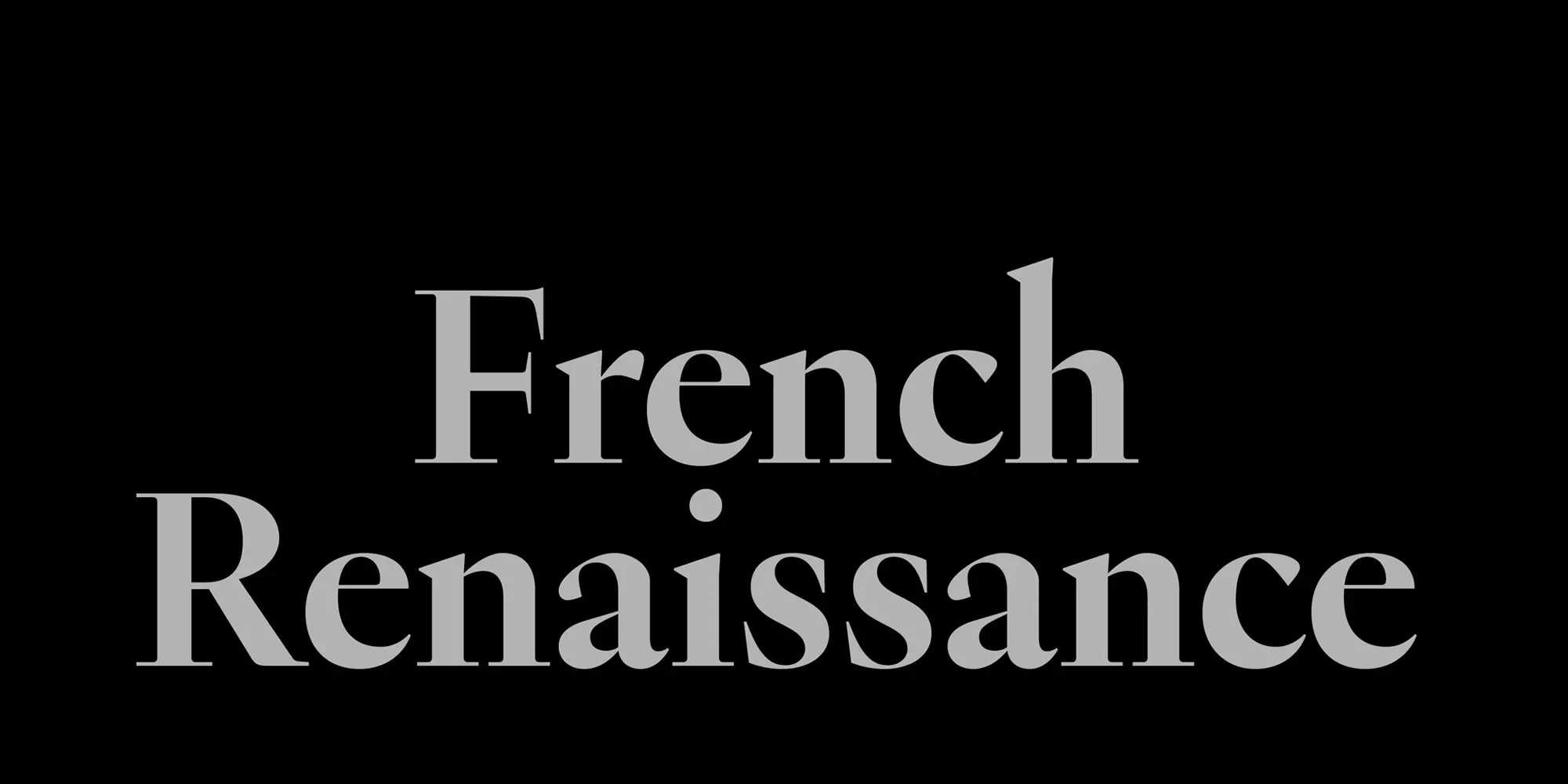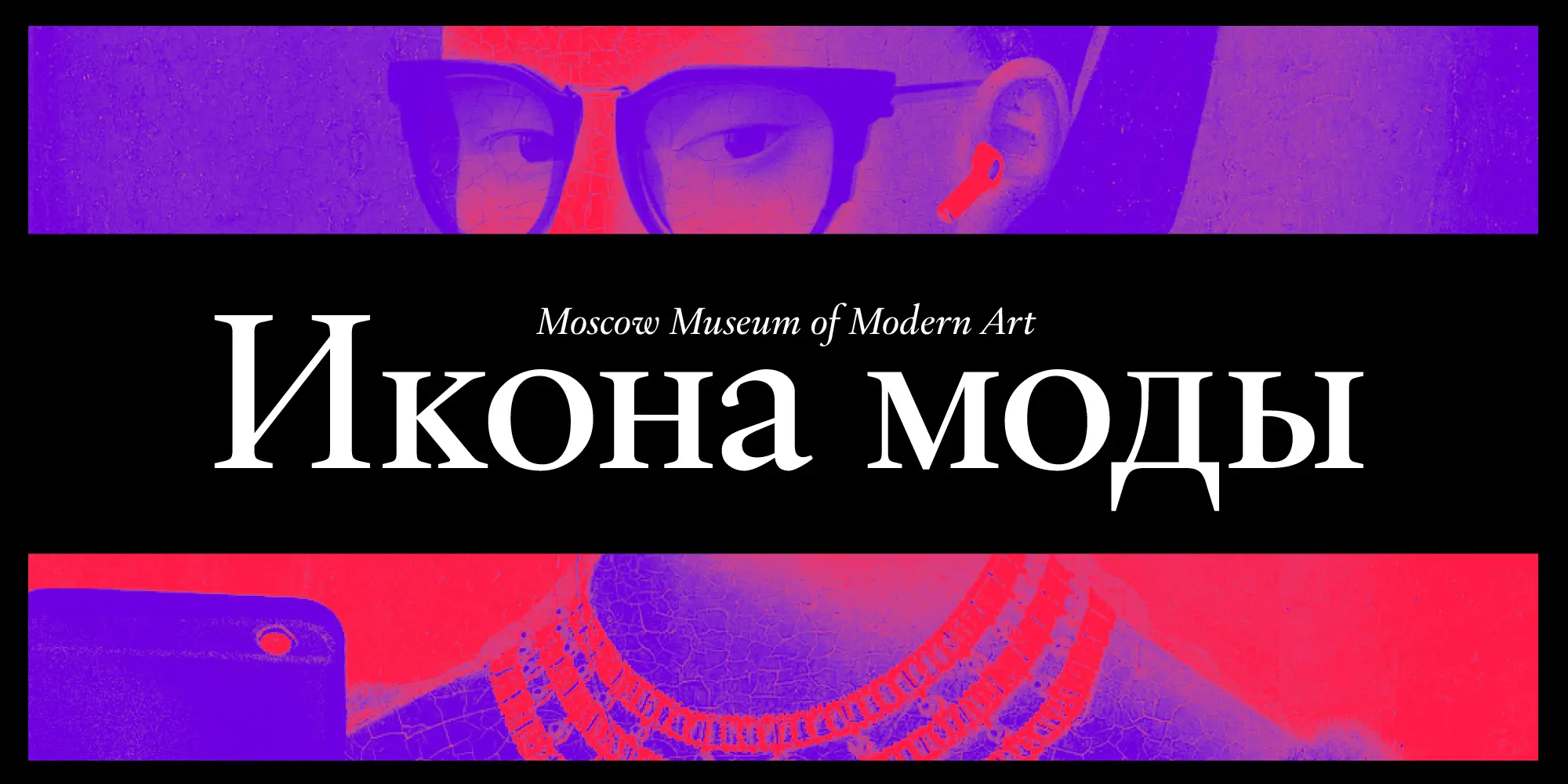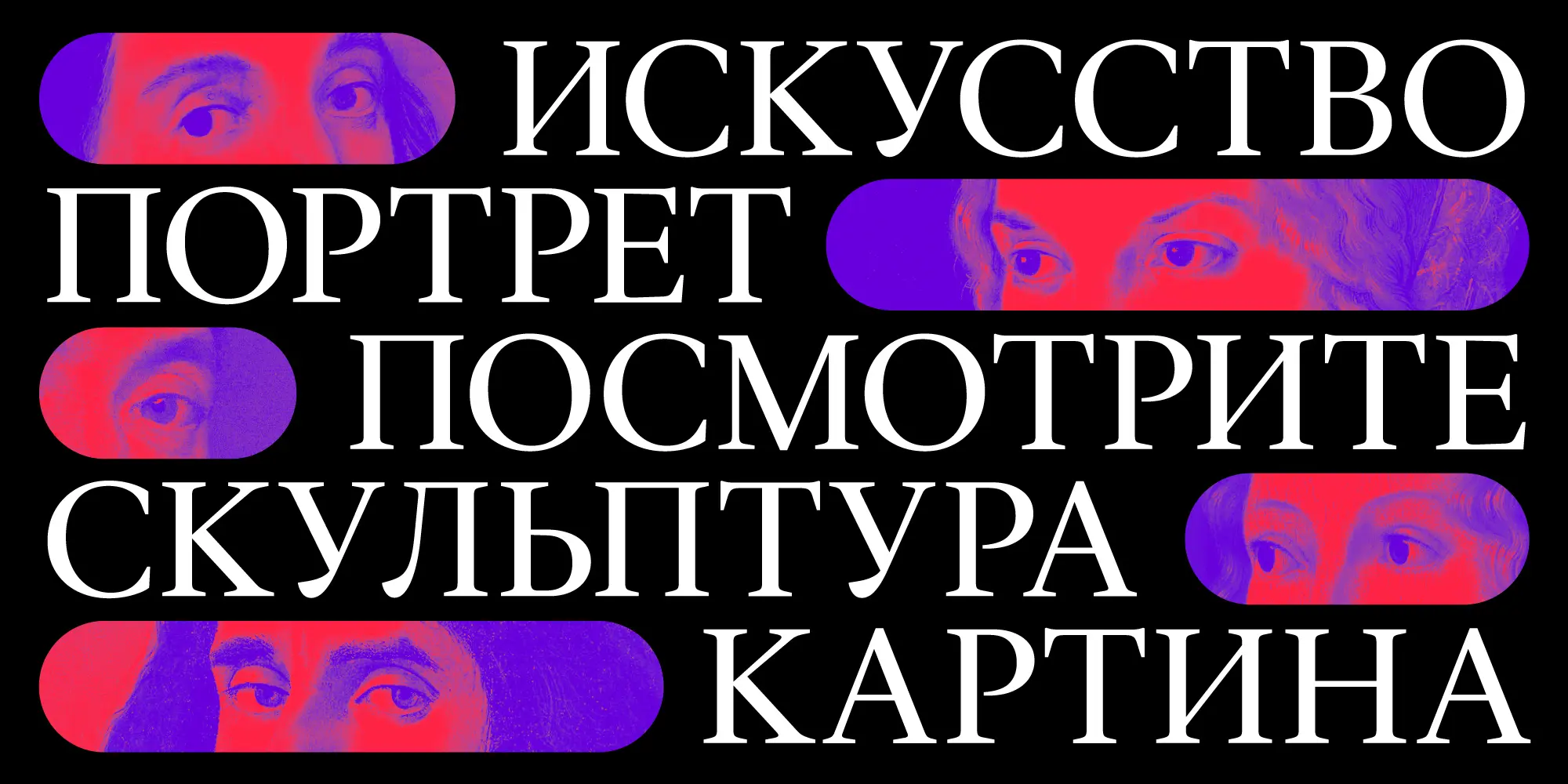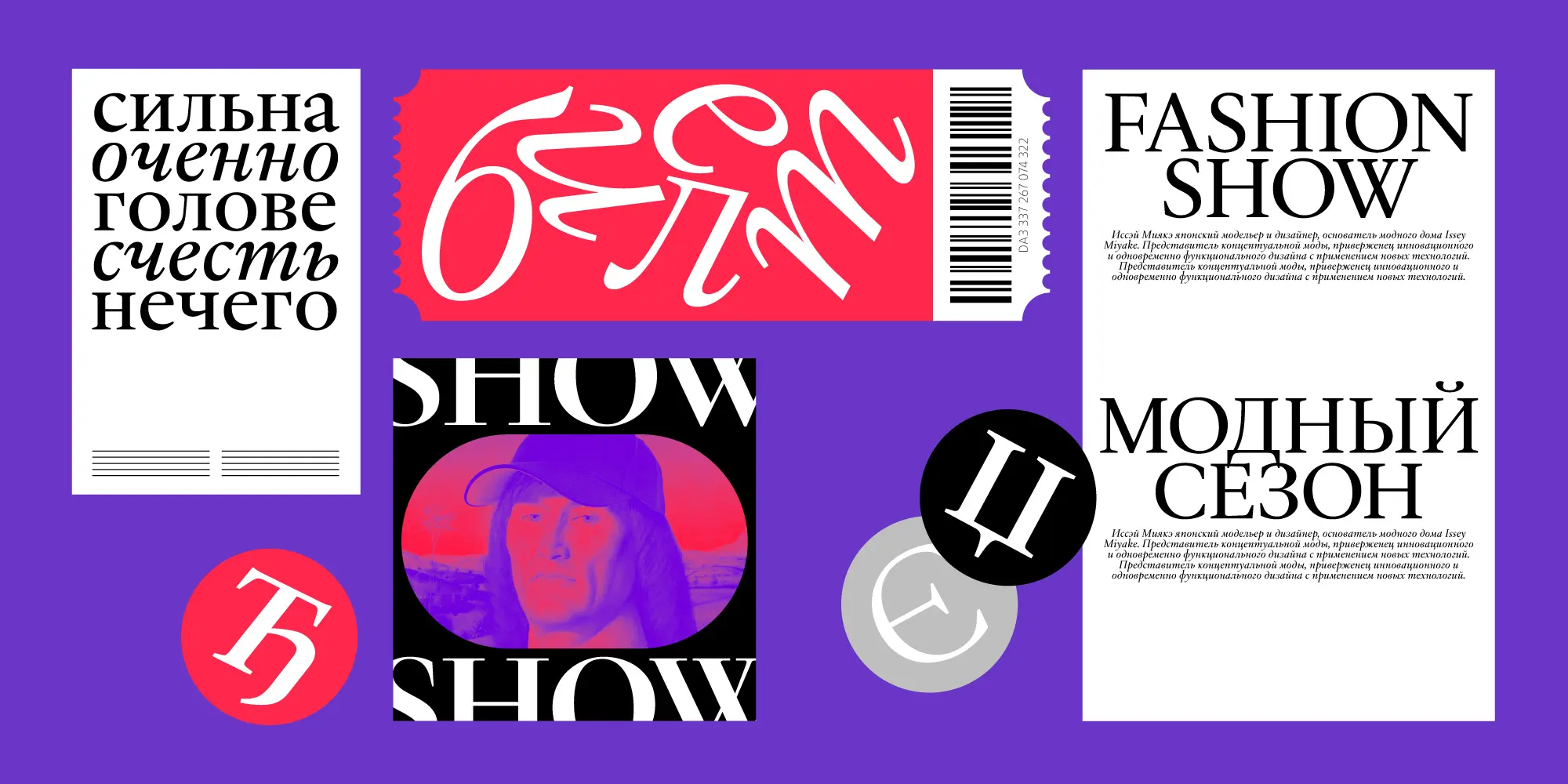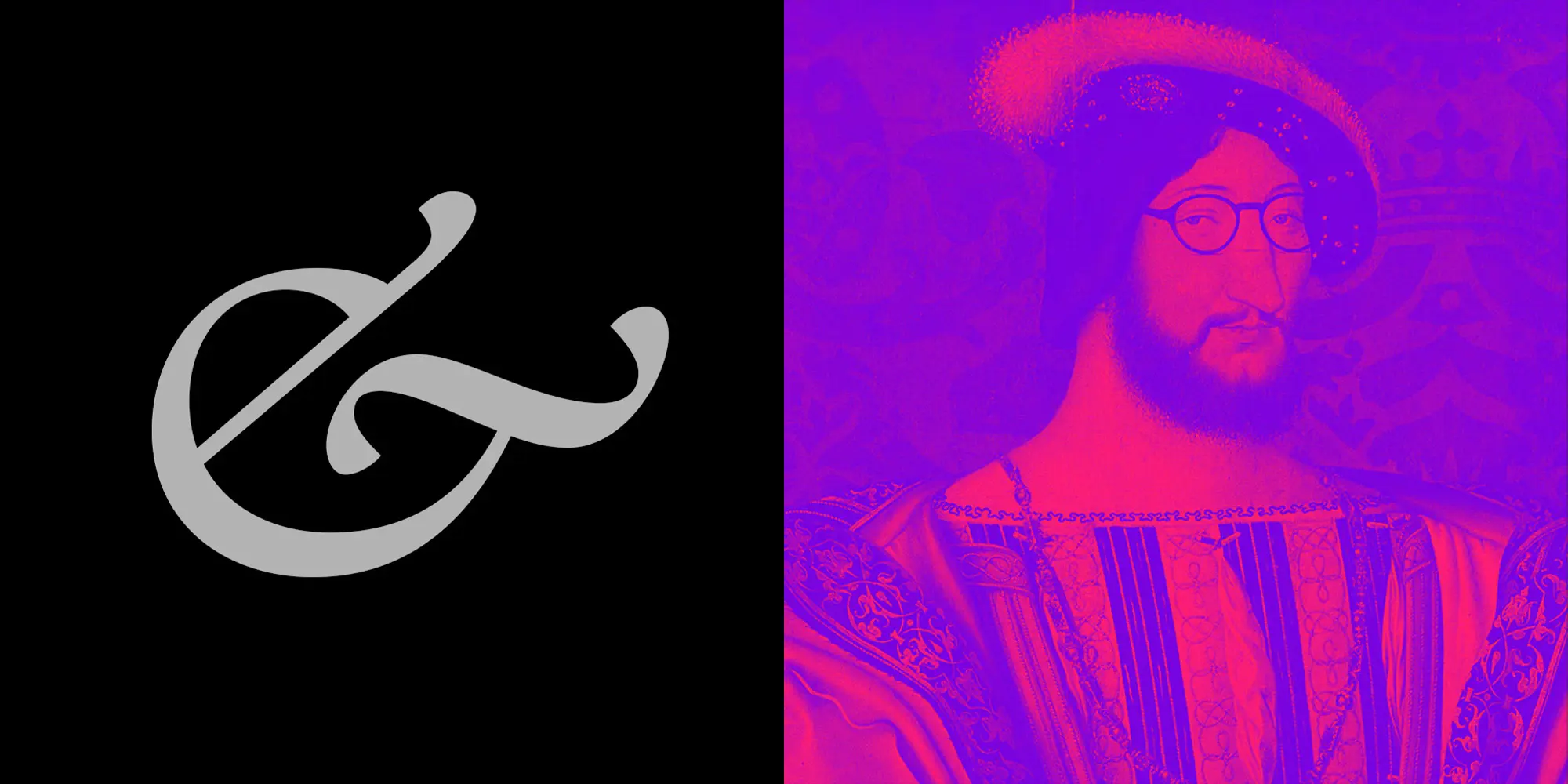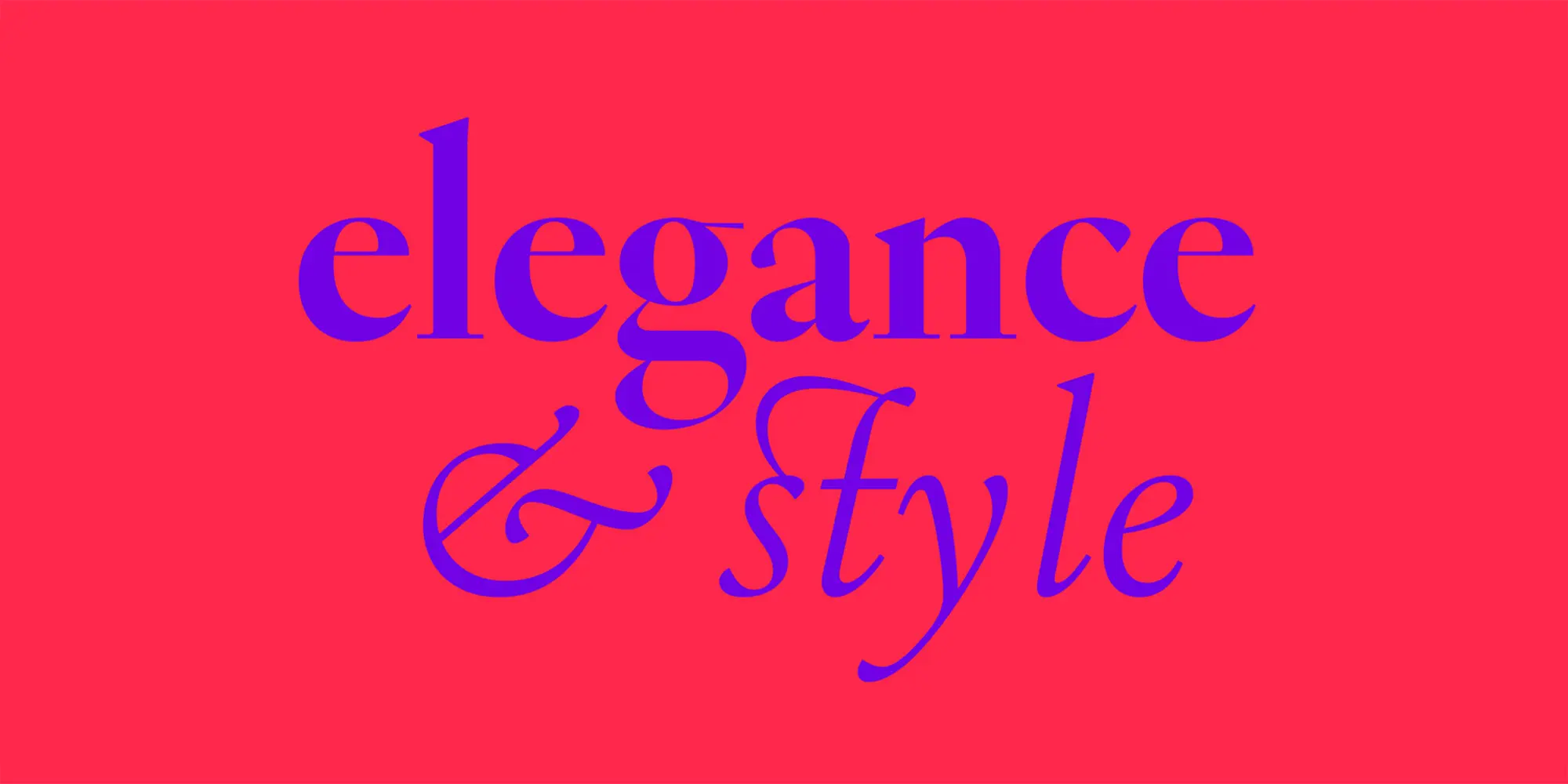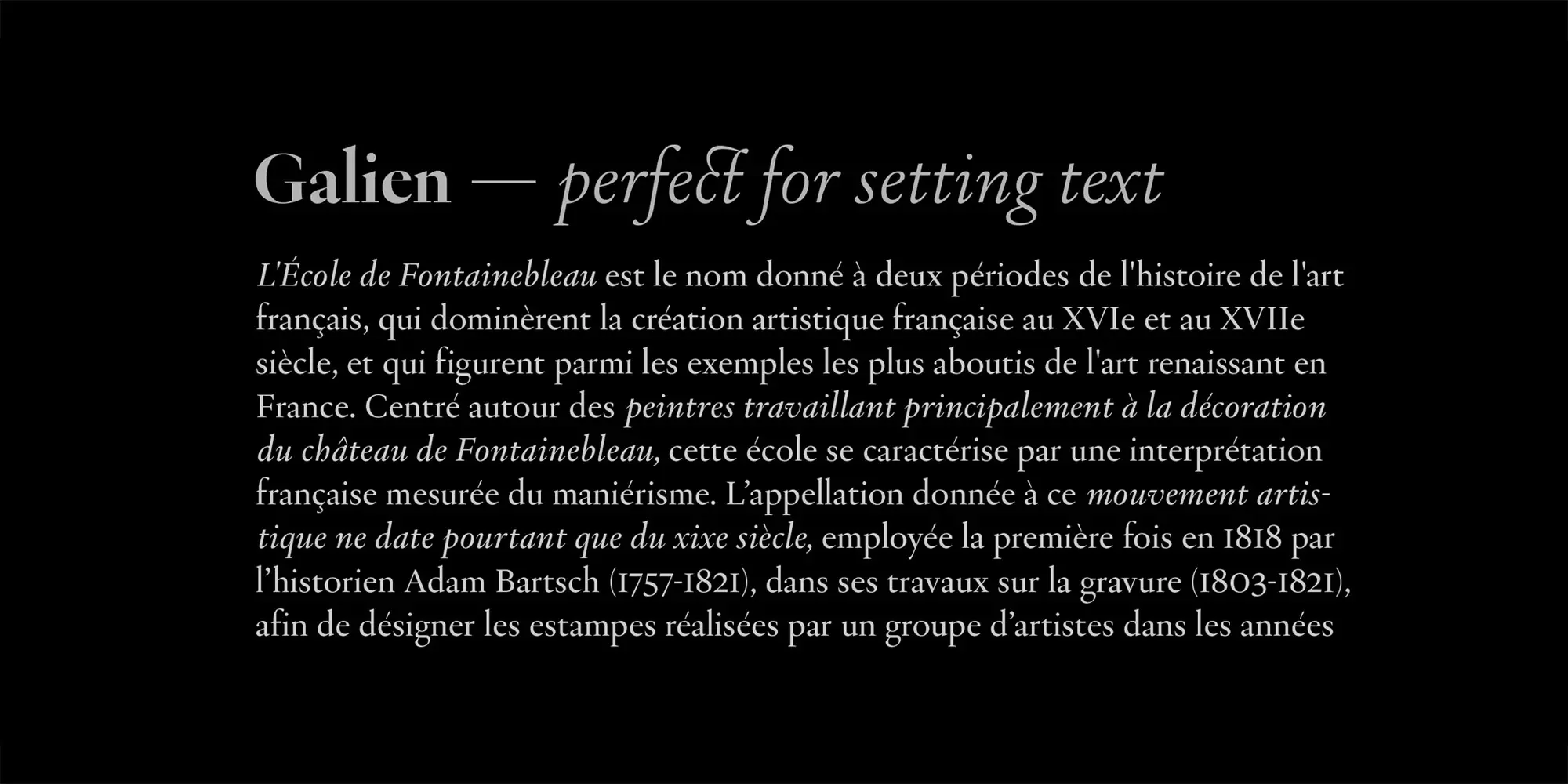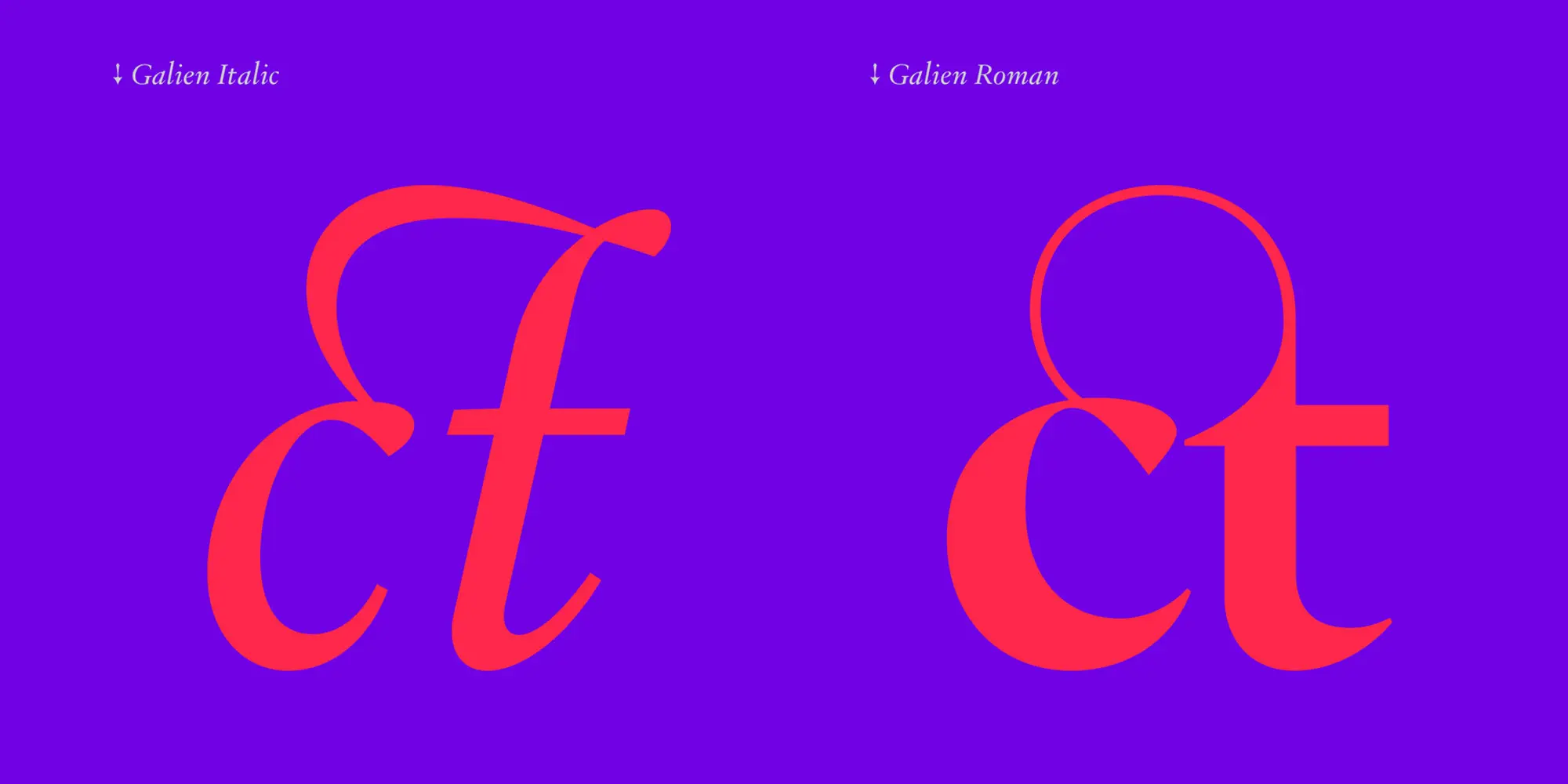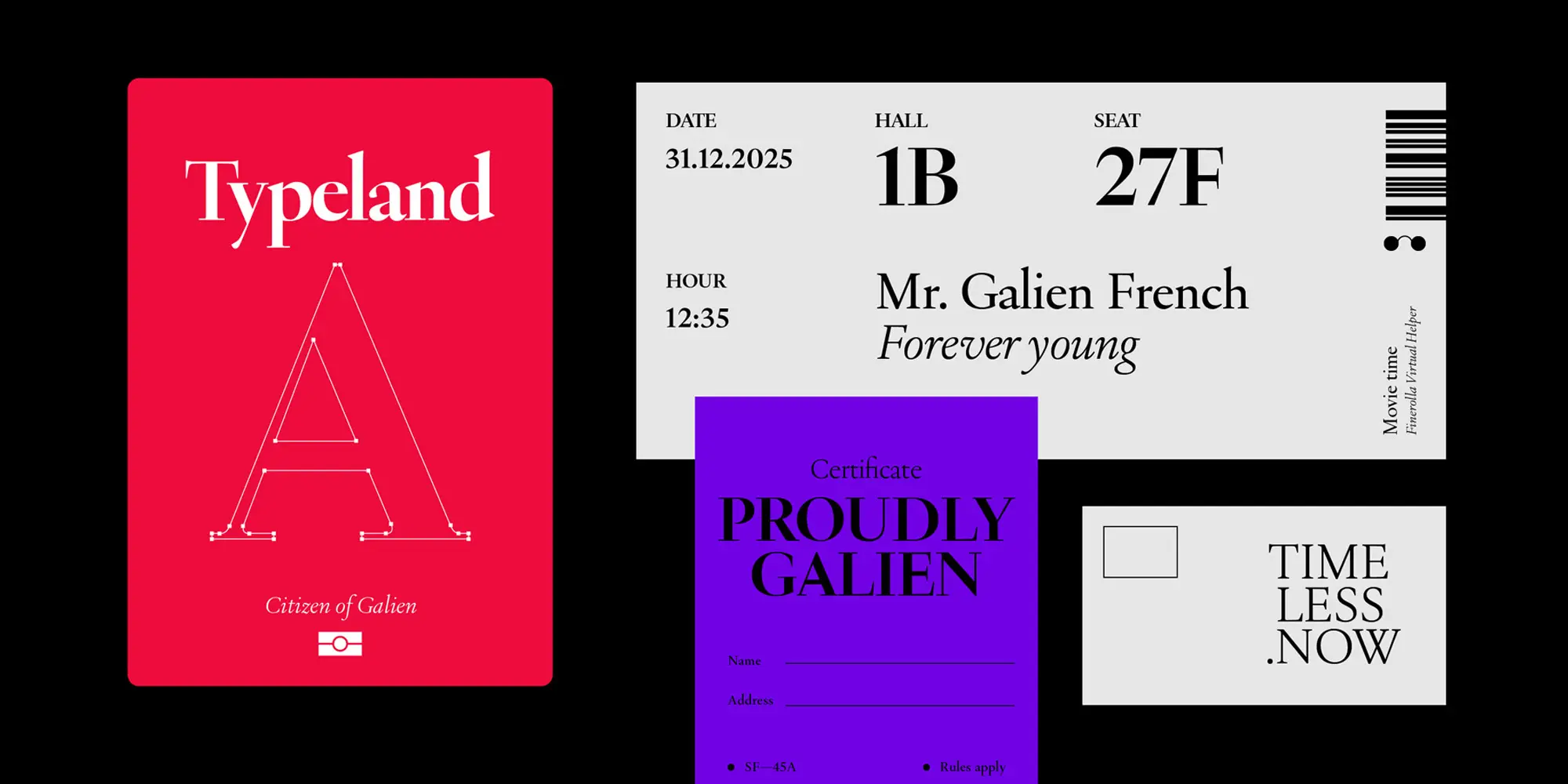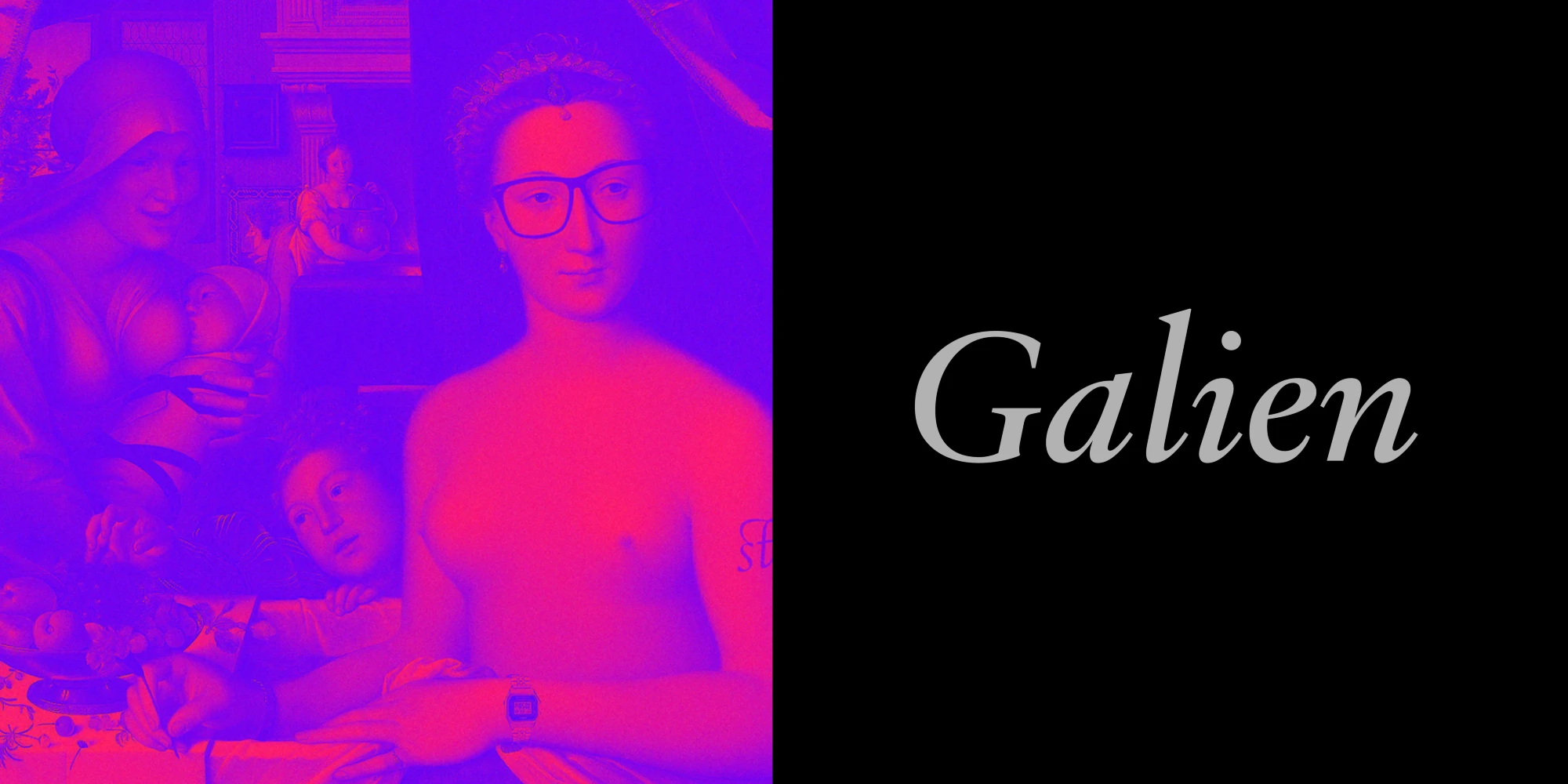
Galien Font Family
Galien is a modern serif font family inspired by the French Renaissance, blending Old Style models into a contemporary digital design. Rooted in the shift from Blackletter to Humanist, it revives a period rather than a single typeface, with italics influenced by Venetian types of the sixteenth century. Tuned for body copy yet elegant in display, its eight styles include a high-contrast Poster cut. A comprehensive character set supports Latin, Cyrillic, numerals, fractions, currencies, and more.
Features
OpenType Features
• Common Ligatures
• Discretionary Ligatures
• Fractions
• Lining Numerals
• Old Style Numerals
• Ordinal Numerals
• Proportional Numerals
• Stylistic Sets
• Subscript
• Superscript
• Tabular Numerals